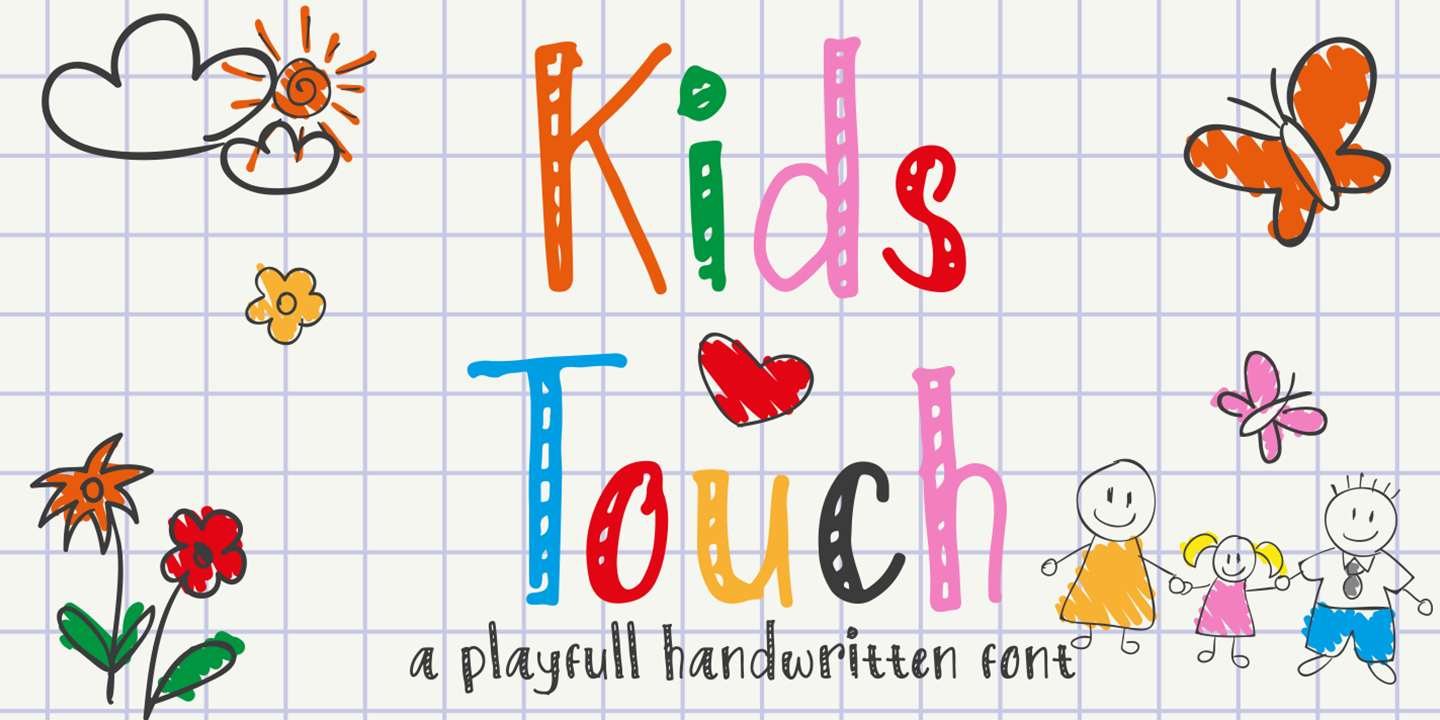
Kids Touch Font is perfect for children's tablet app interfaces, educational touchscreen games, interactive learning platforms, kid-friendly digital interfaces, touch-based educational tools, and playful technology branding. Its interactive character makes it ideal for educational app developers, children's technology companies, interactive learning platforms, touchscreen device manufacturers, and any application requiring child-friendly typography that conveys digital accessibility, interactive learning, and the engaging experience of touch-based technology designed specifically for young users.
Kids Touch Font is exciting because it bridges the gap between digital innovation and child development through touchscreen-optimized letterforms that reflect the intuitive interaction and educational potential of touch-based technology for children. Its finger-friendly proportions and interactive details evoke the natural curiosity children have for technology and the satisfying responsiveness of well-designed touch interfaces, making it perfect for brands creating technology that empowers children's learning. The font's touch character transforms communications into invitations to interactive discovery.
Kids Touch Font family includes digitally-optimized weight variations typically featuring Light, Regular, Medium, and Bold options with touch-friendly styling that maintains child accessibility. The family often incorporates interactive symbols, touch elements, and child-friendly icons designed for educational technology applications, providing designers with comprehensive tools for creating authentic, child-touch-focused typographic compositions.